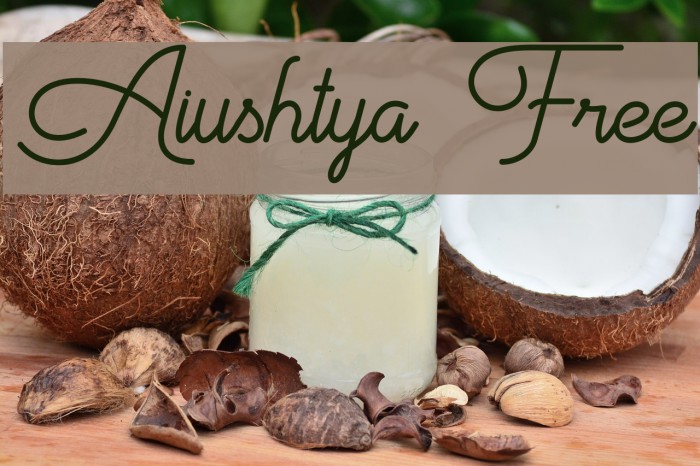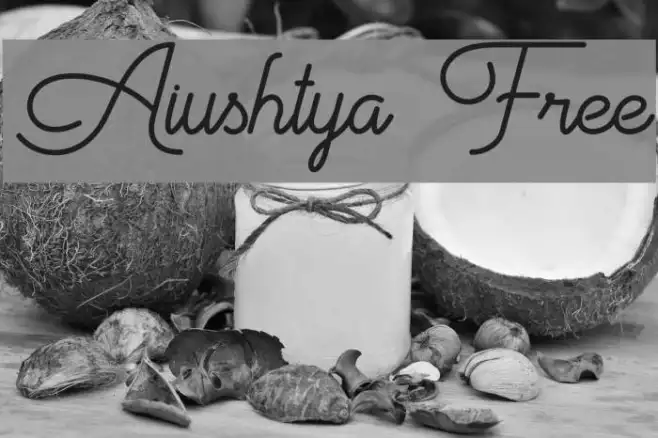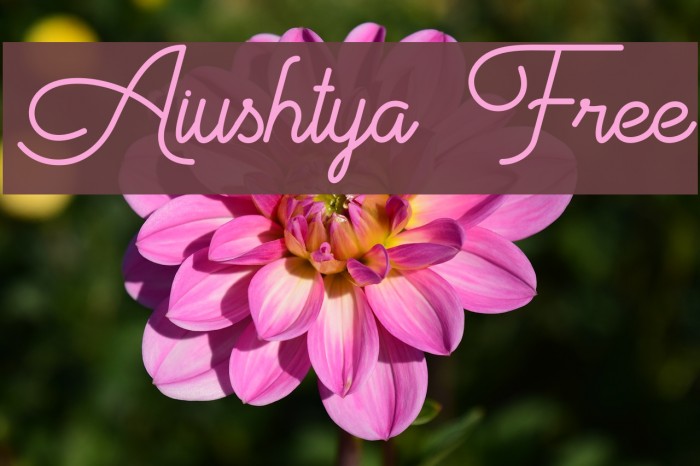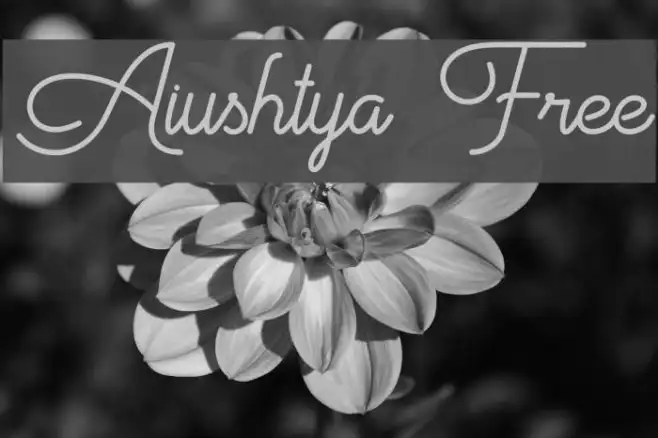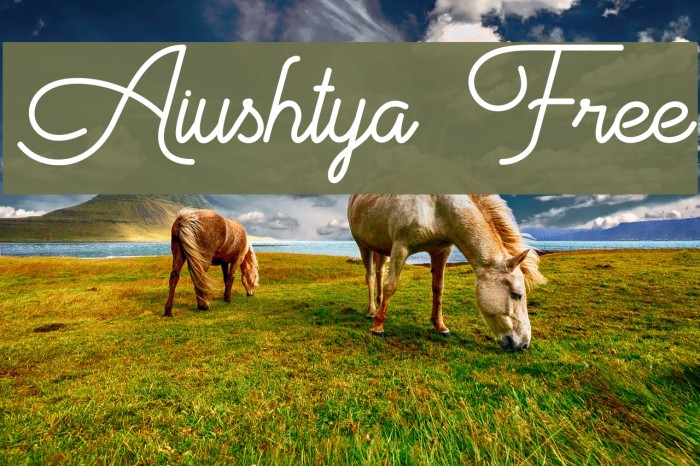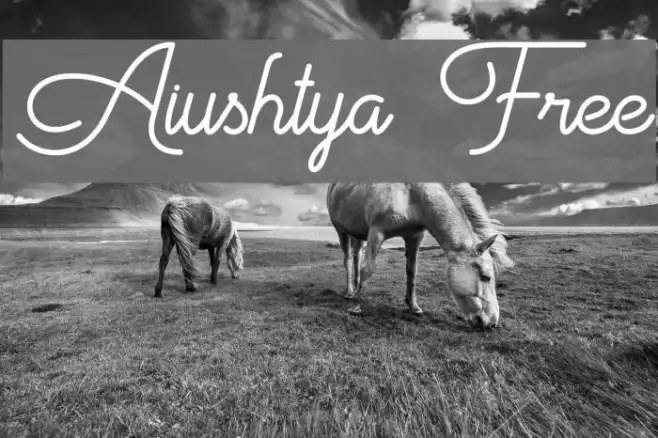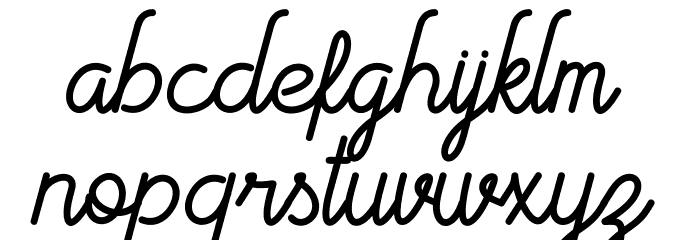
Aiushtya Free Font
This font features a flowing, cursive style with elegant loops and swirls, giving it a sophisticated and artistic appearance. The uppercase letters are particularly ornate, with each character exhibiting unique flourishes that add to the overall decorative feel. The lowercase letters maintain a consistent script style, offering a smooth and connected look that enhances readability while retaining a sense of elegance. The numerals and special characters are crafted to match the cursive theme, ensuring a cohesive design throughout. This font is ideal for projects that require a touch of class and creativity, such as invitations, greeting cards, and branding materials.
An elegant cursive font with ornate uppercase and smooth lowercase letters.
• Proposed Projects: Perfect for wedding invitations, greeting cards, logos, and branding materials.
• Category: Script
• Overall Style: Decorative
• Use Case: Logos, Invitations, Greeting Cards